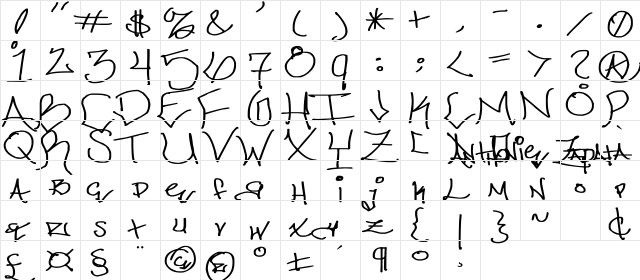
ChicagoHoodZZ Regular
Design Context for ChicagoHoodZZ Typeface
ChicagoHoodZZ is a composed and adaptable typeface that performs quietly and consistently across a wide range of design contexts.